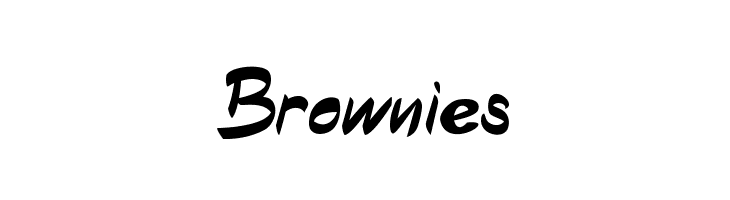
A bold, handwritten-style font with dynamic, slanted characters.
A playful, bold font with a hand-drawn, whimsical style.
A playful, bold handwritten font with rounded edges and a casual style.
A bold, playful font with rounded, hand-drawn characters.
A bold, brush-style font with an artistic and dynamic appearance.
A bold, dynamic font with a slight slant and strong visual impact.